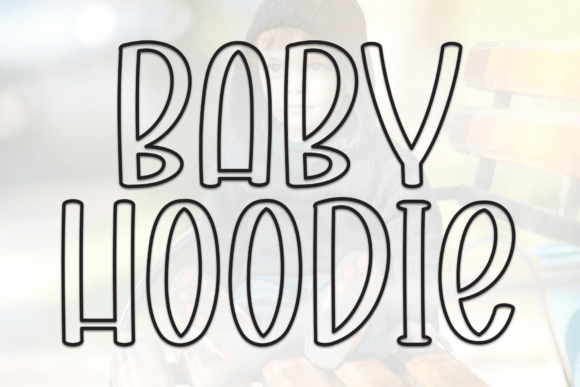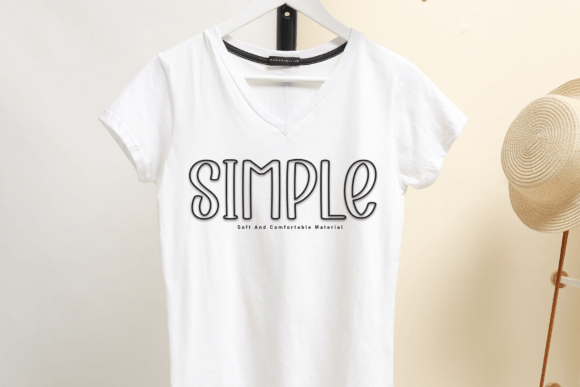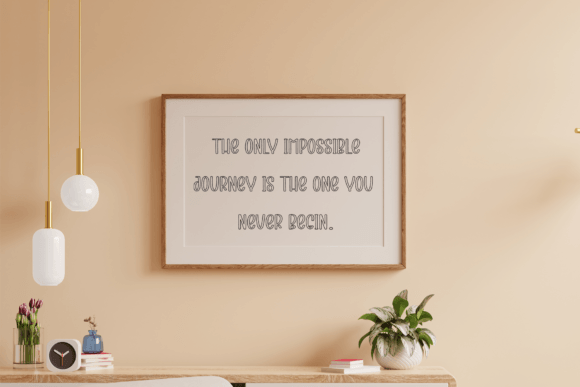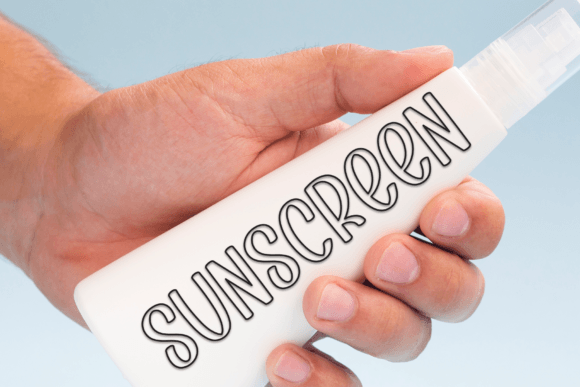
Baby Hoodie Font
About the Baby Hoodie Font
Discover the charm of Baby Hoodie Font. This font is a perfect blend of modern aesthetics and classic appeal. Baby Hoodie
is a cute and playful outline display font. Its rounded letters give a soft, friendly feel, making it perfect for kids’ designs, invitations, or anything fun. The open spaces in the letters make it easy to read and great for bright and cheerful projects.
Baby Hoodie excels in headlines, logos for children’s products, and playful branding projects. It’s also ideal for short, impactful text on invitations, posters, and packaging where its friendly personality shines. However, avoid using it for body text or lengthy paragraphs; the outline style can become visually tiring in extended use and reduce readability.
Its rounded forms and open counters make it unsuitable for small sizes or applications requiring high precision, such as UI elements. Pair Baby Hoodie effectively with a clean sans-serif like Lato or Open Sans for a balanced contrast, or a classic serif font such as Garamond for a touch of sophistication. A playful script font could also work well for secondary text, enhancing its whimsical feel.
Baby Hoodie’s core personality is undeniably playful and friendly, making it a strong choice for brands targeting a young audience or those emphasizing warmth and approachability.
Baby Hoodie Font Usage Examples
Baby Hoodie Font Example